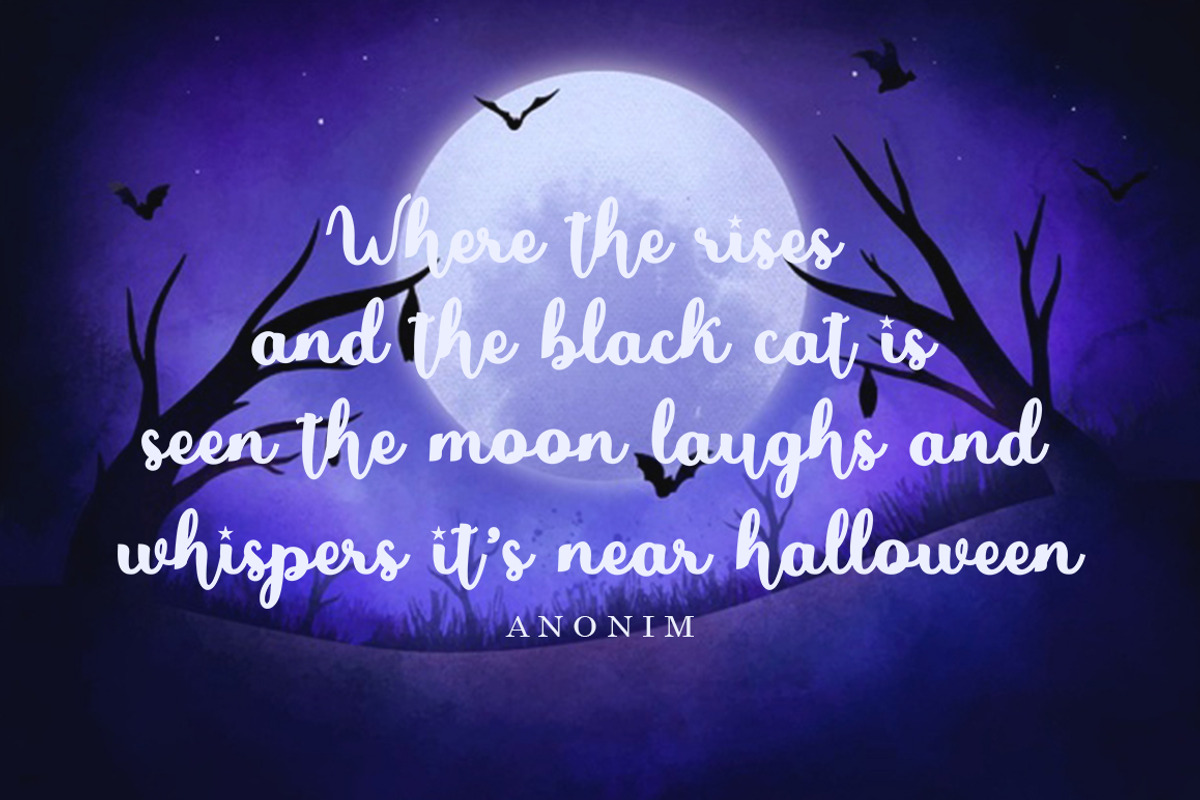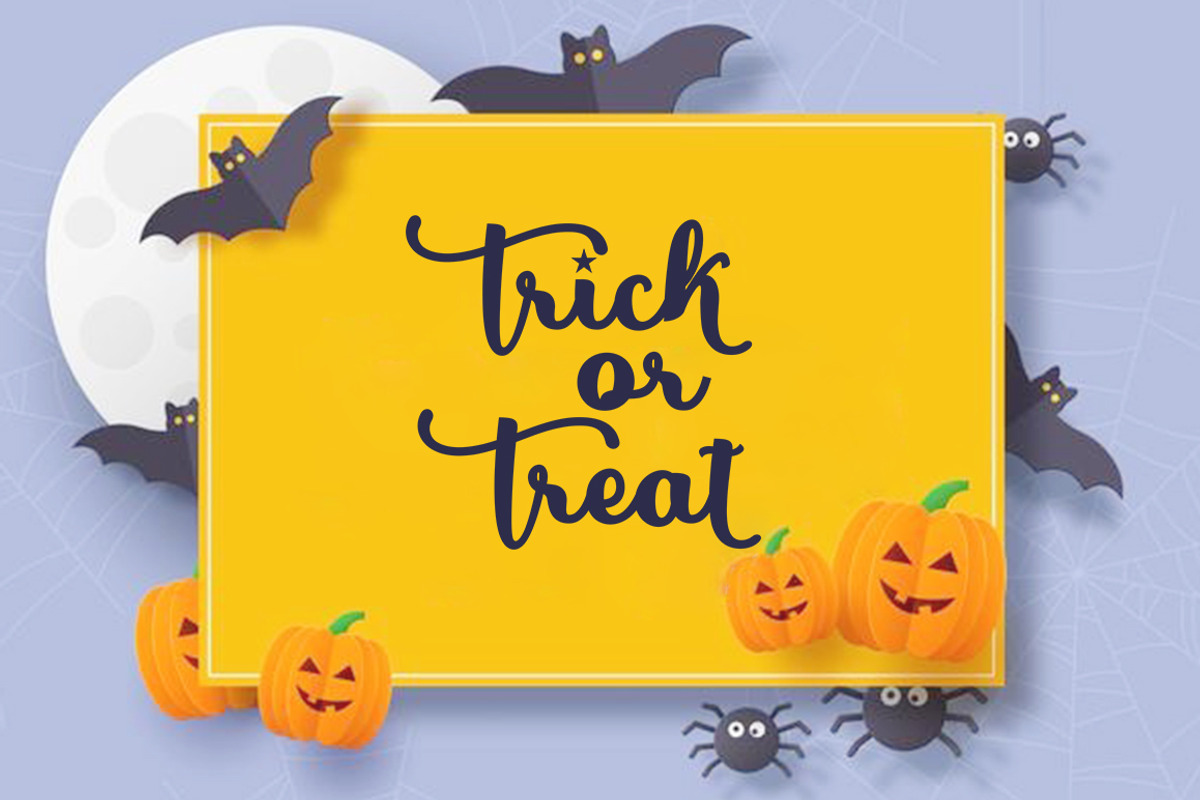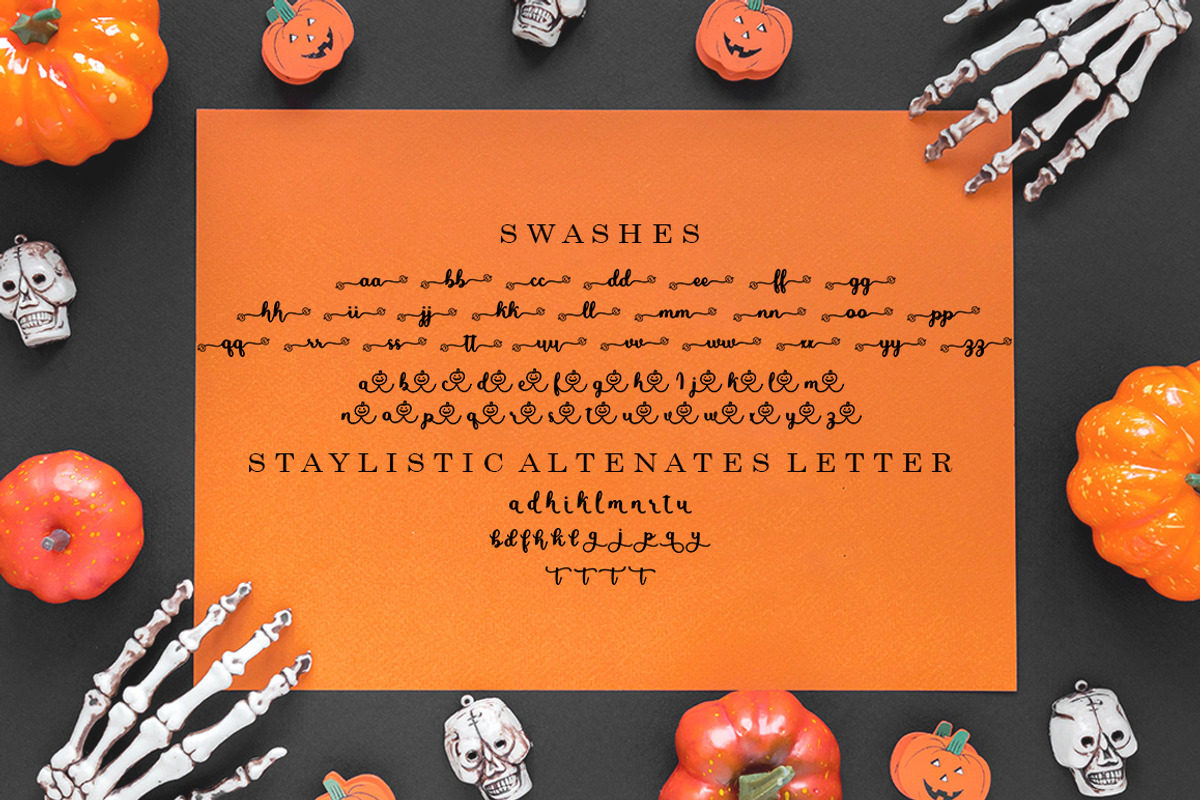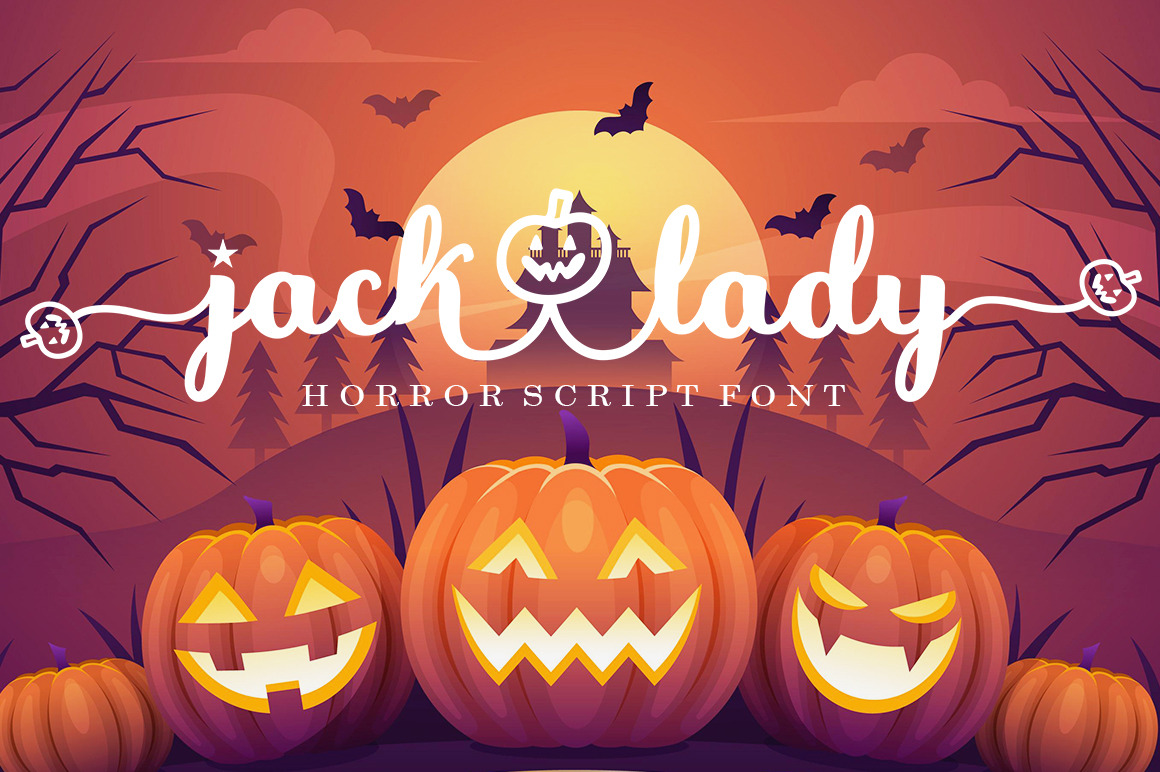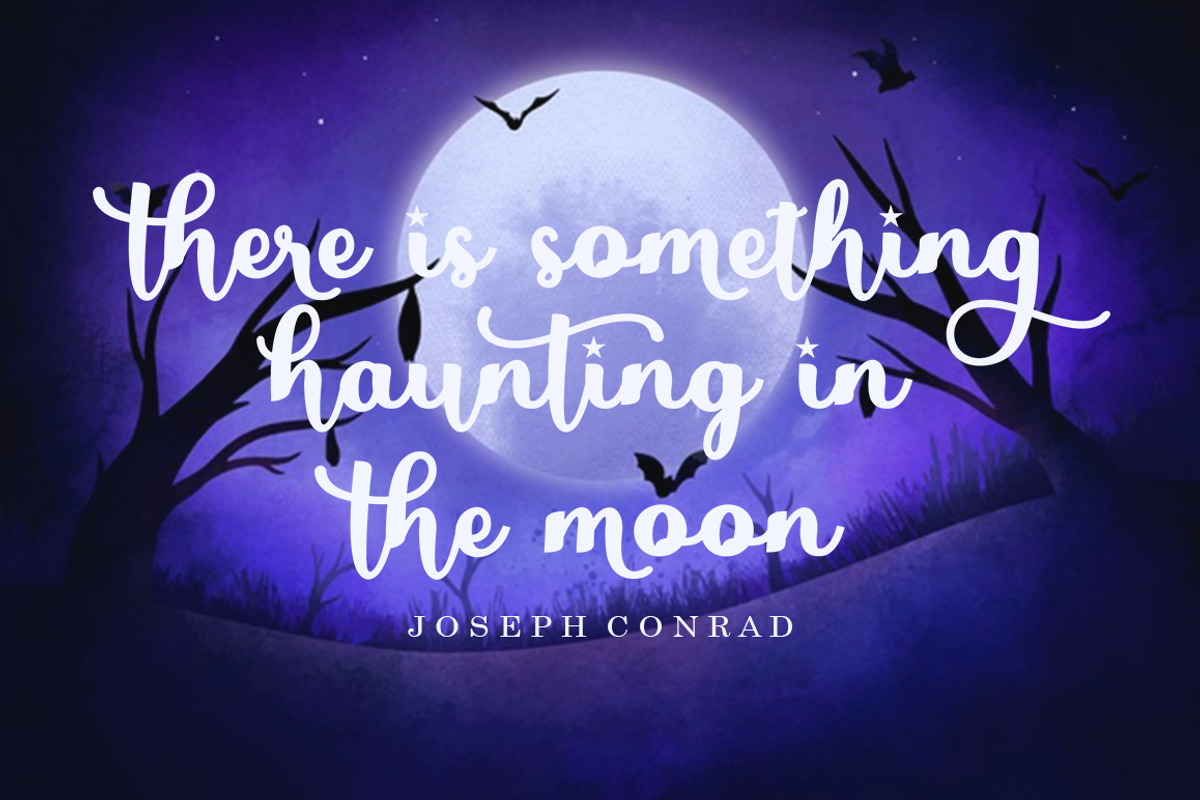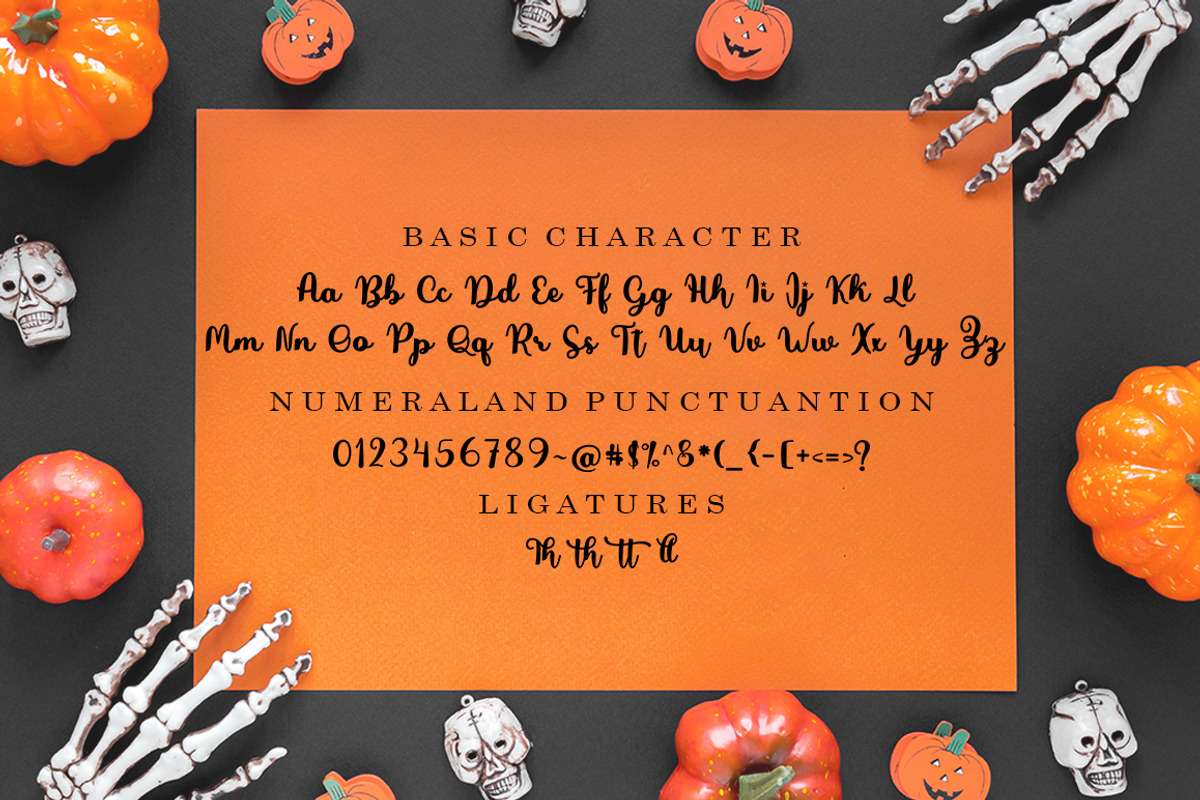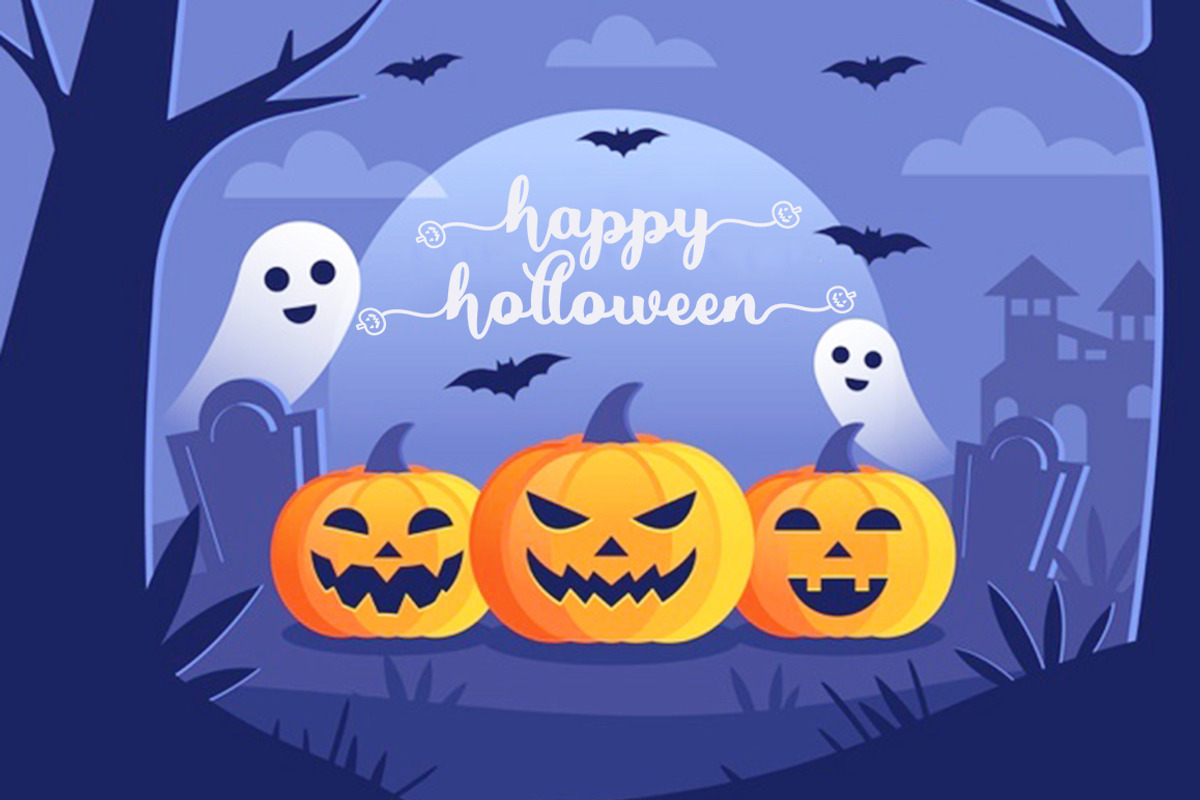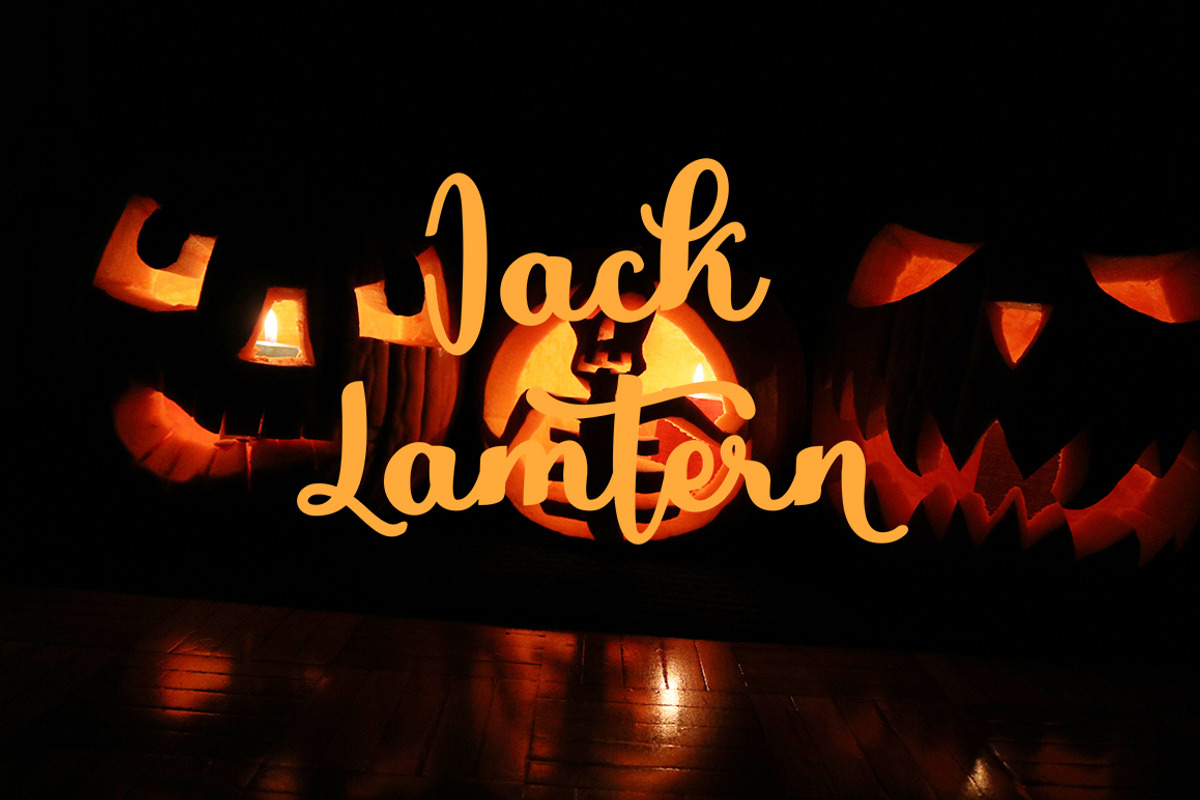
Jack Lady Halloween Font
Introducing
Jack Lady in a Halloween Font style. Equipped with 300 glyphs Jack Lady is perfect for branding projects, home appliance design, product packaging, use in business cards, invitation cards, etc. Simply as a stylish text overlay onto a background image or anything that requires a touch of elegance.